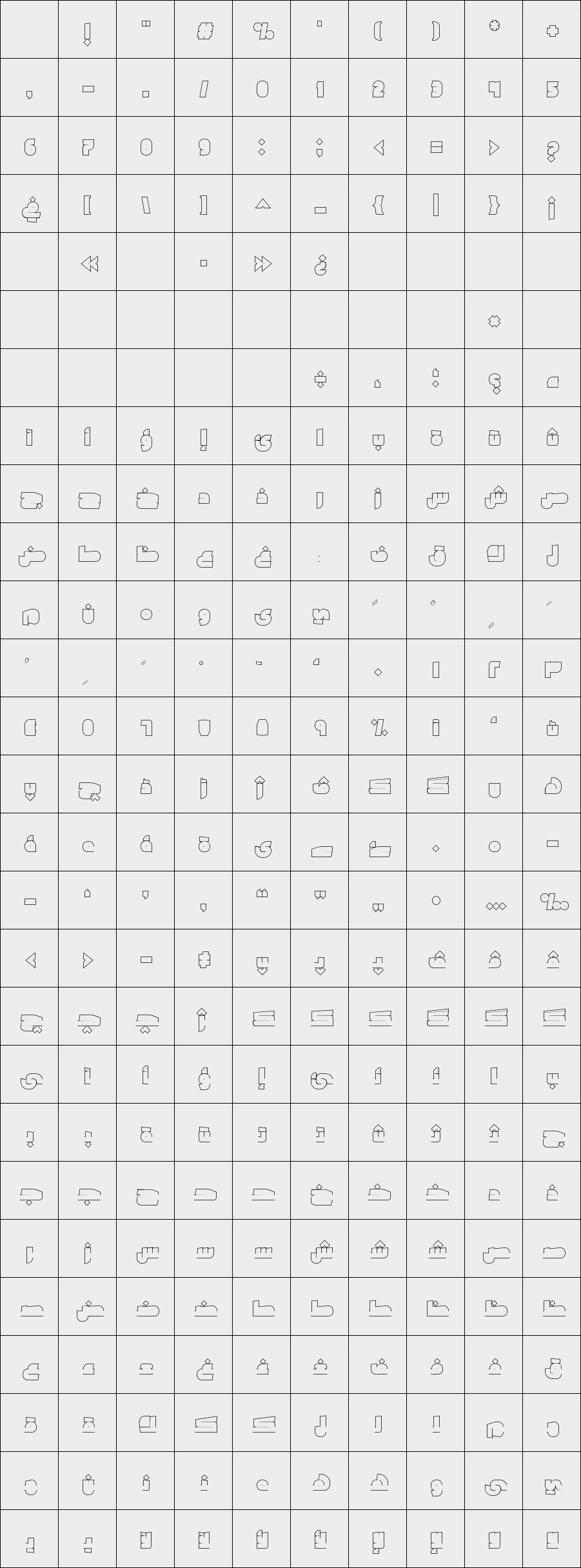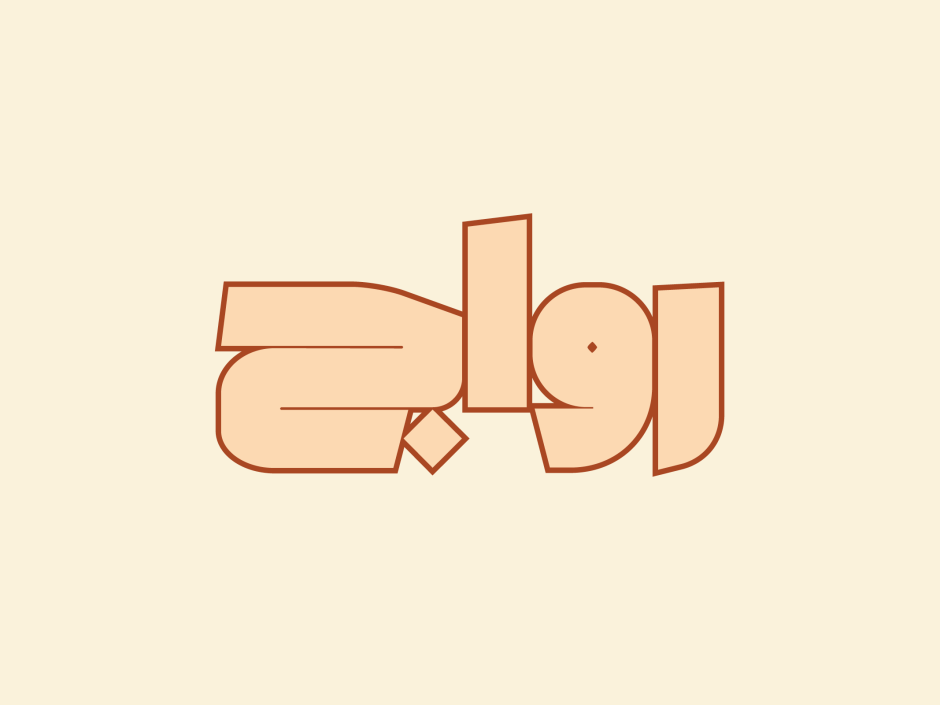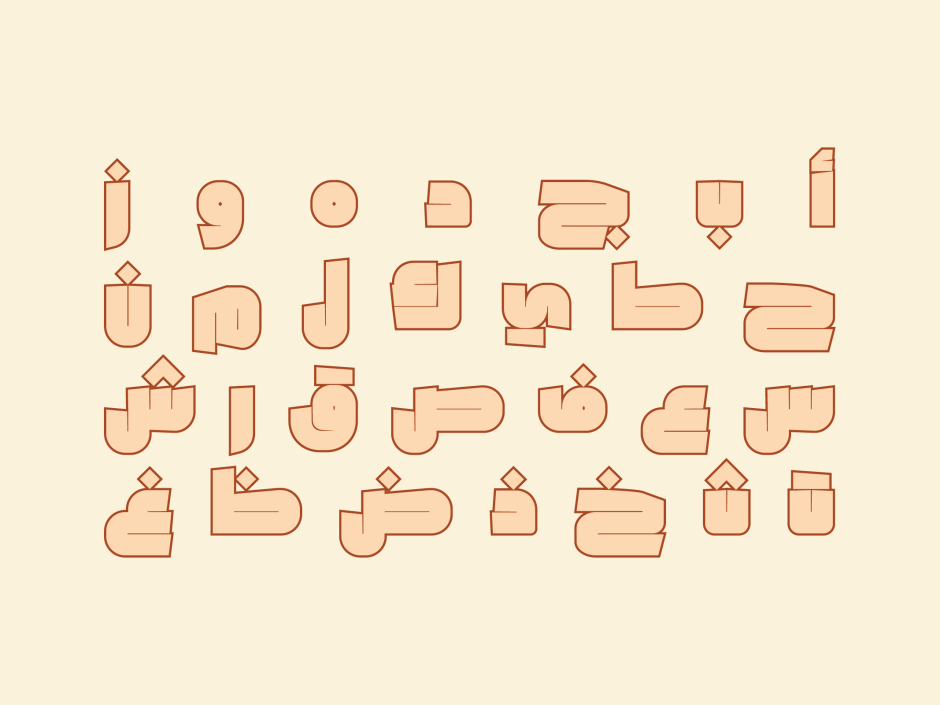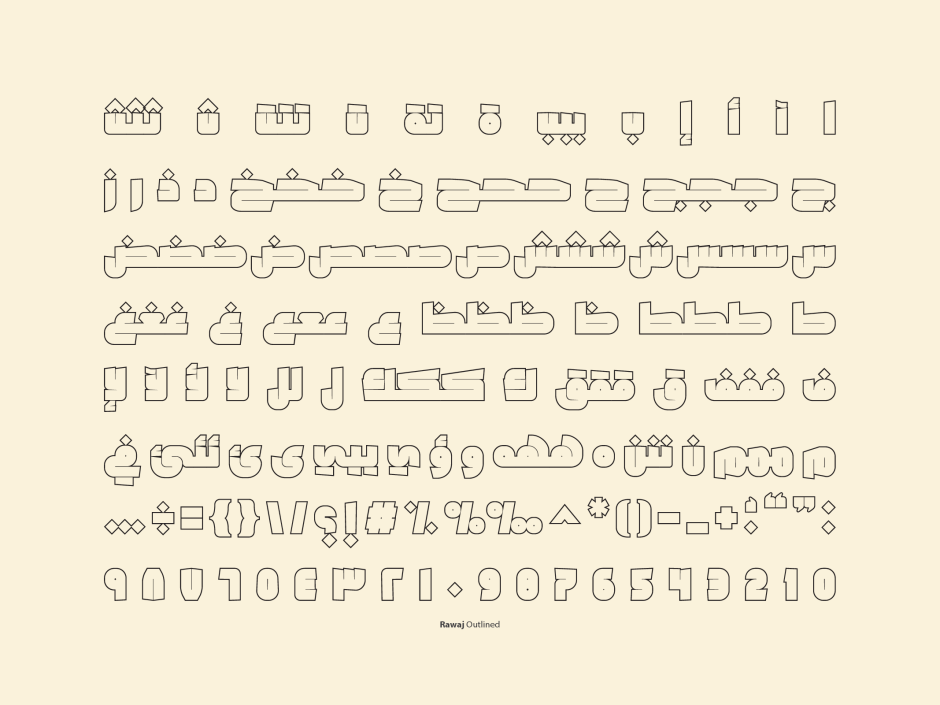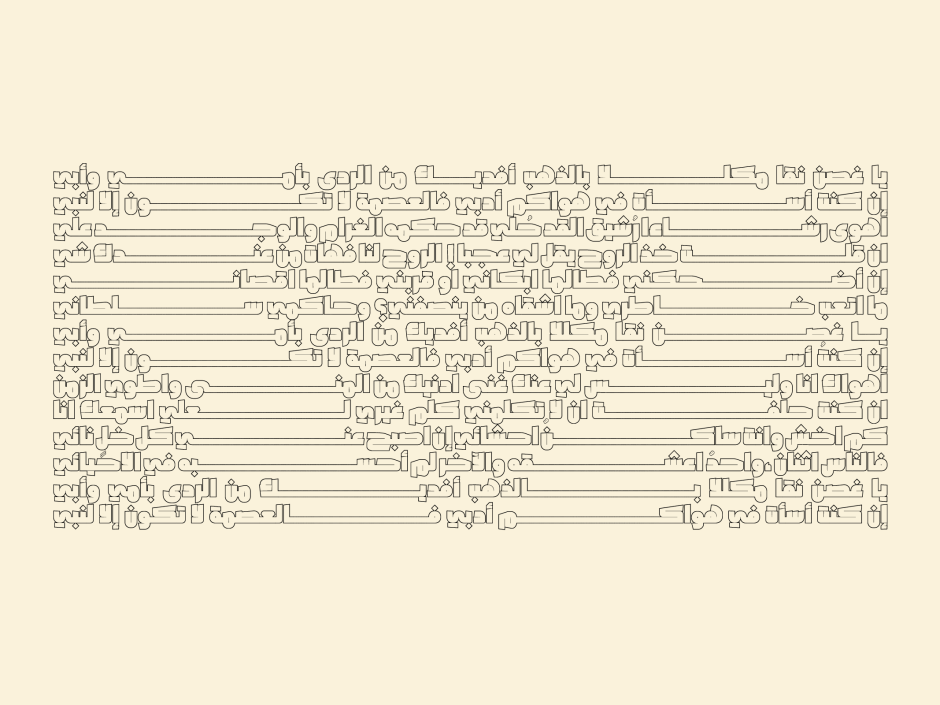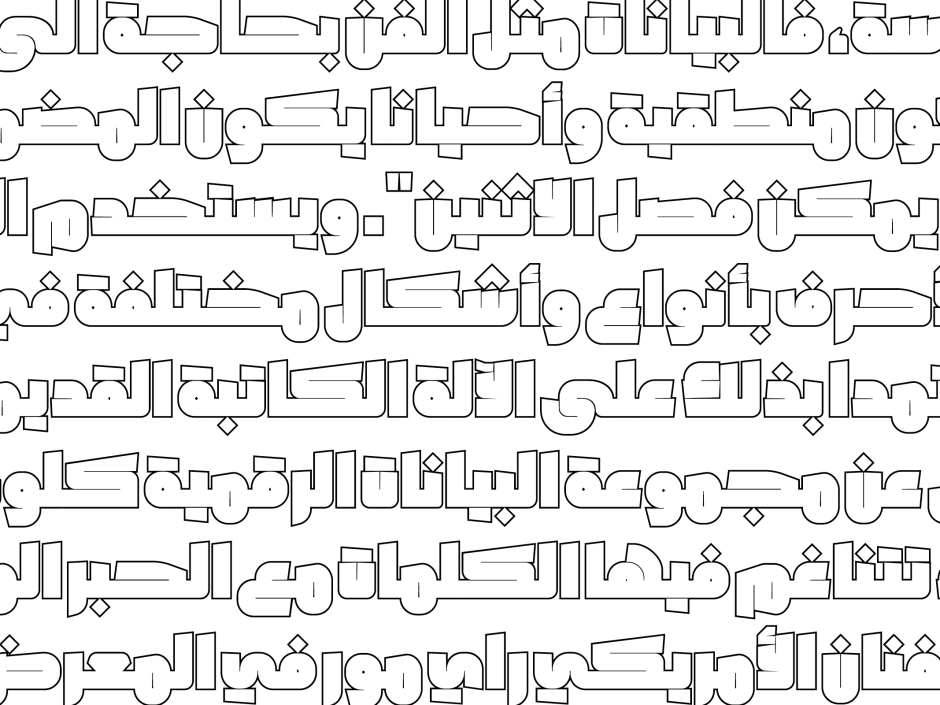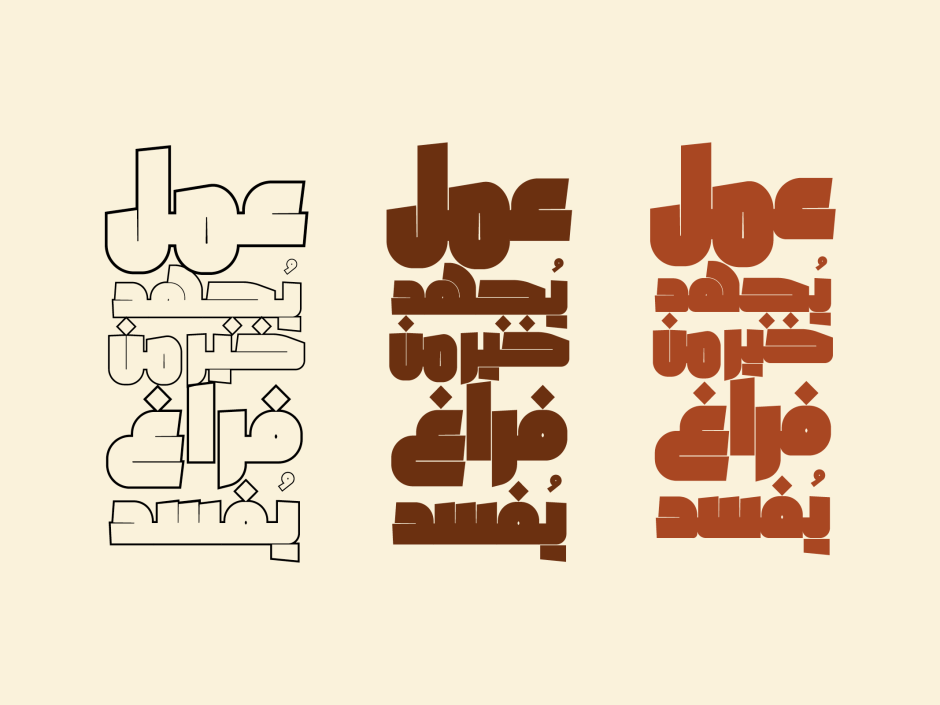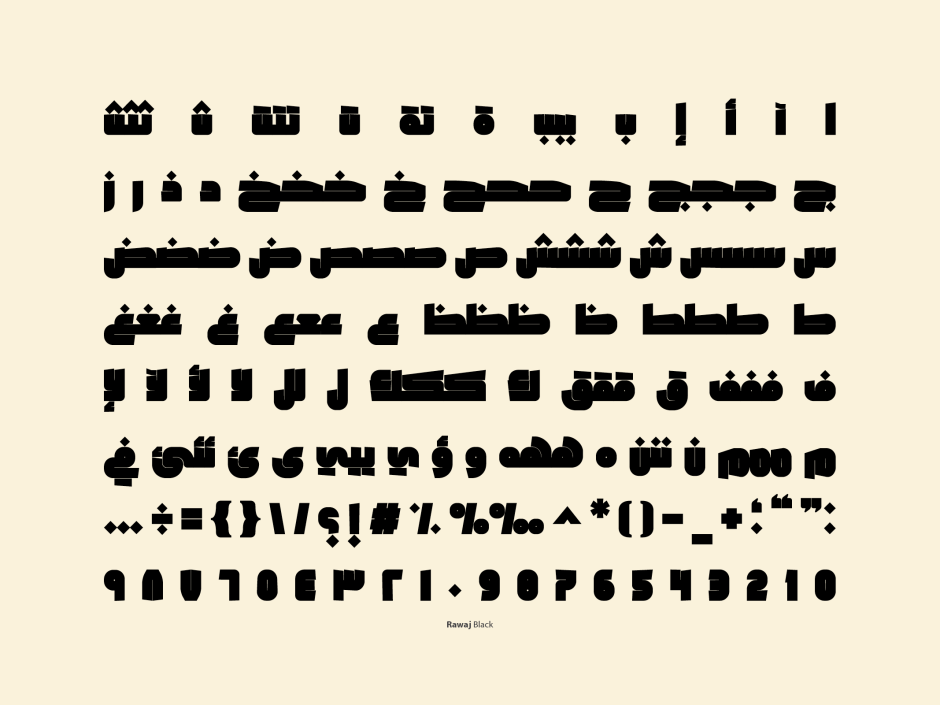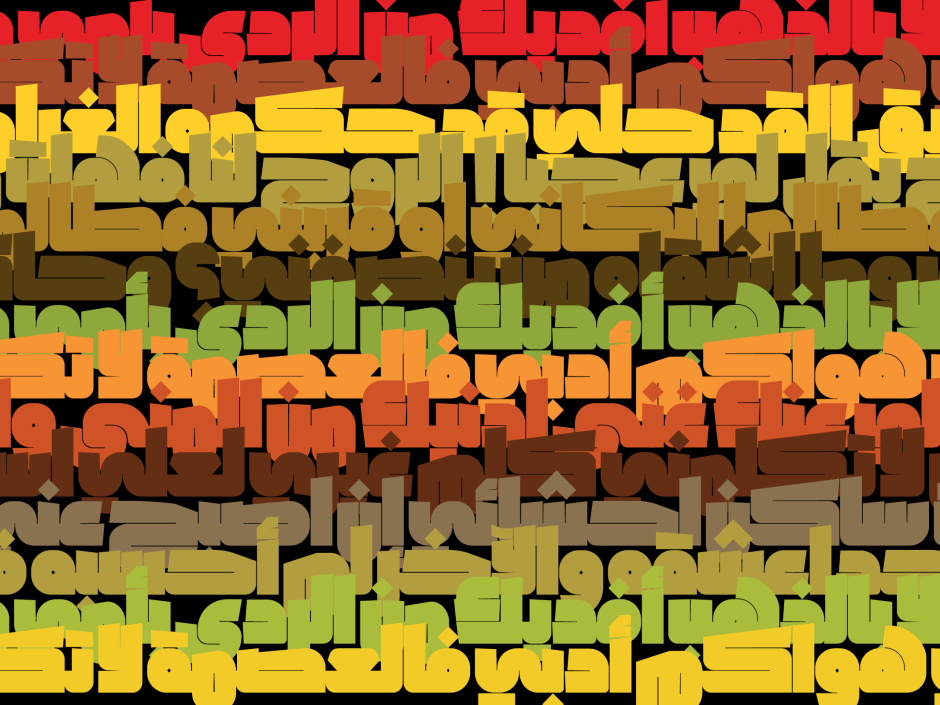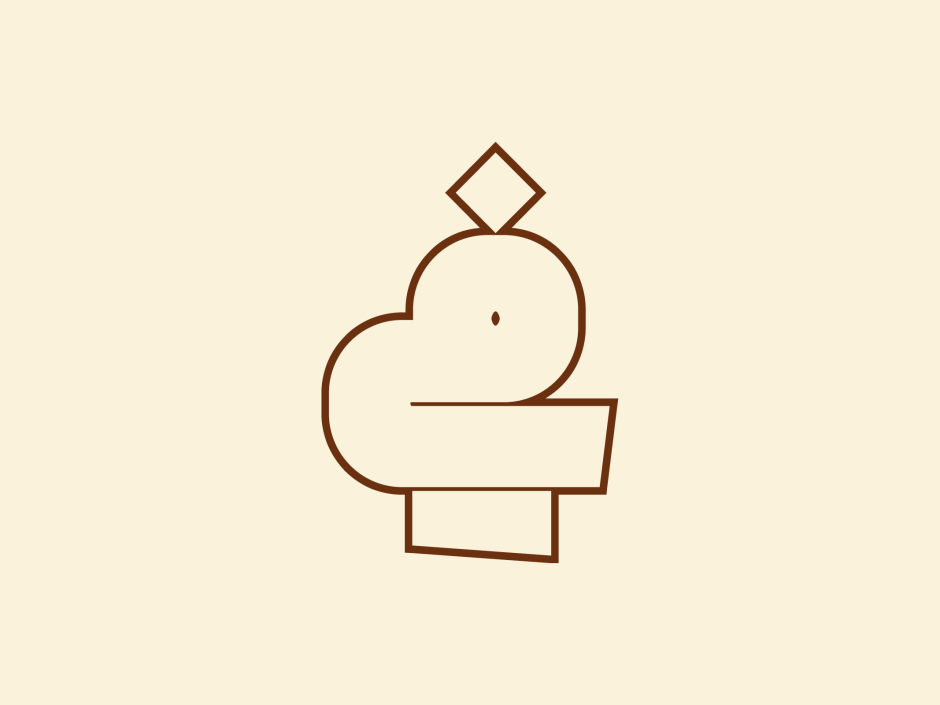
Rawaj
/ Outlined
Rawaj is an Arabic font family consists of three styles, Hollow-outlined, Heavy and Transitional Heavy. The letterforms combine visual features like the connected dots and the narrow counters taken from three of the common Arabic handwriting styles, Kufic, Ruqu’ah and Naskh. The font fits well in various applications like branding or web.